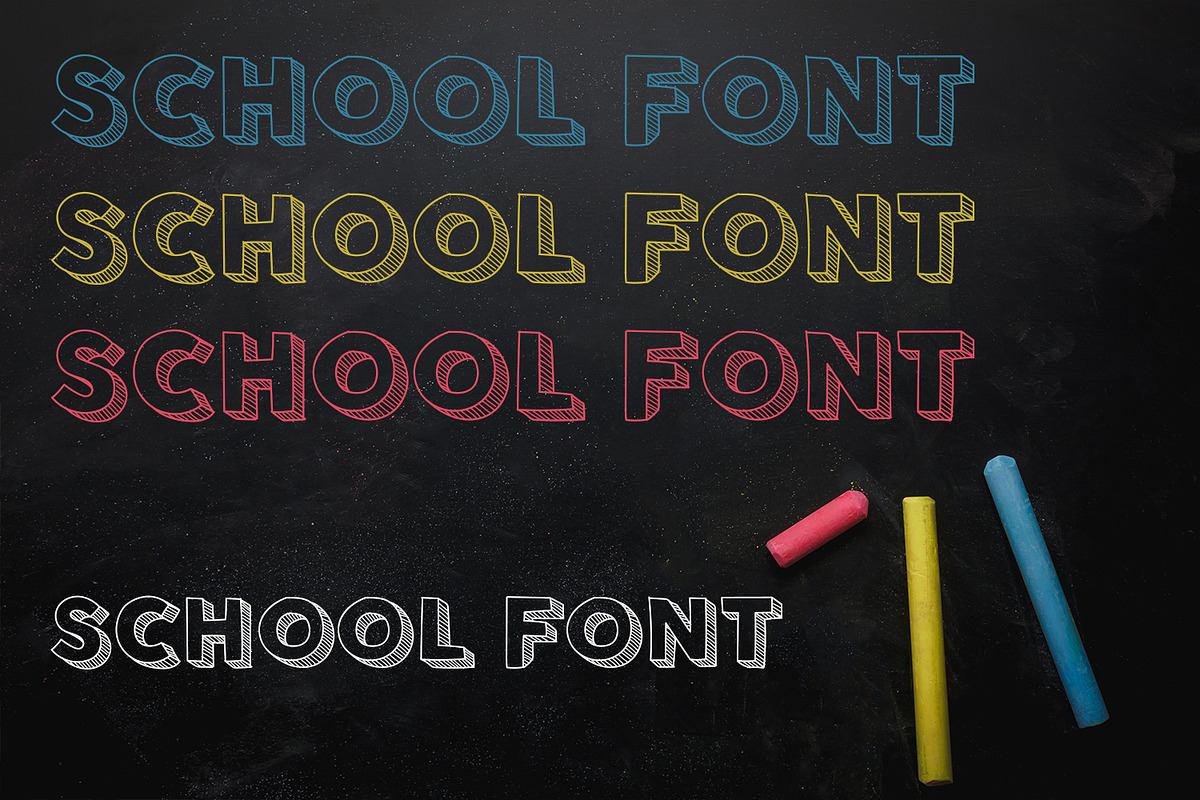
Please note, to use this font for commercial purposes, you must purchase the full version. School Font is a playful and educational typeface designed to evoke the spirit of learning and creativity. With its clean and simple letterforms, this font is perfect for school-themed projects, children's books, classroom materials, educational websites, and more. Whether you're designing for a kid-friendly brand, a school event, or a fun educational tool, School Font adds a friendly and approachable touch to your work. Test it out and enjoy free download access for personal use. Experience the charm and versatility of School Font Free Download before purchasing the commercial license. Add a fun, educational vibe to your designs with School Font.